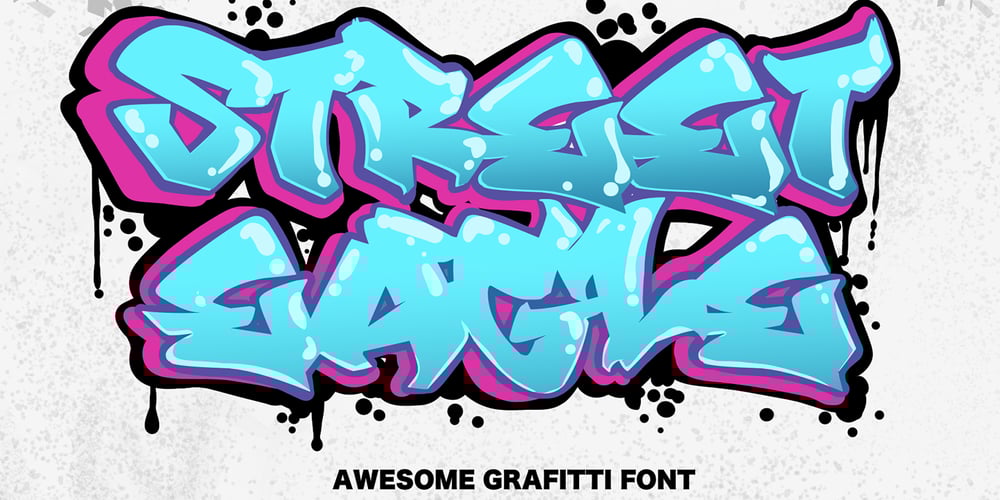
Street Eagle Graffiti
Street Eagle Graffiti font
Street Eagle Graffiti Font Family was designed by Sipanji and published by Sipanji21. Street Eagle Graffiti contains 1 styles and family package options. Street Eagle is a unique display font with a graffiti-like appearance. Use this font for any crafting project, apparel design, logotype, advertising, wall decoration, and pretty much anything that requires a personalized look. Take your designs to the next level with this stunning font!